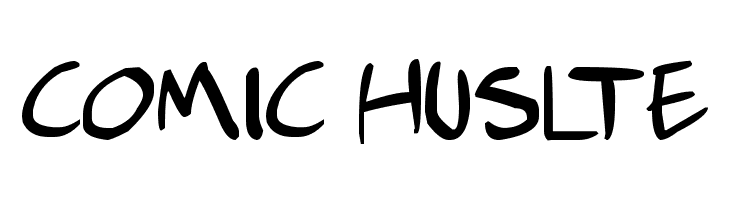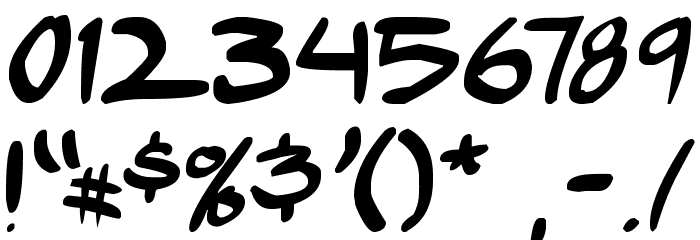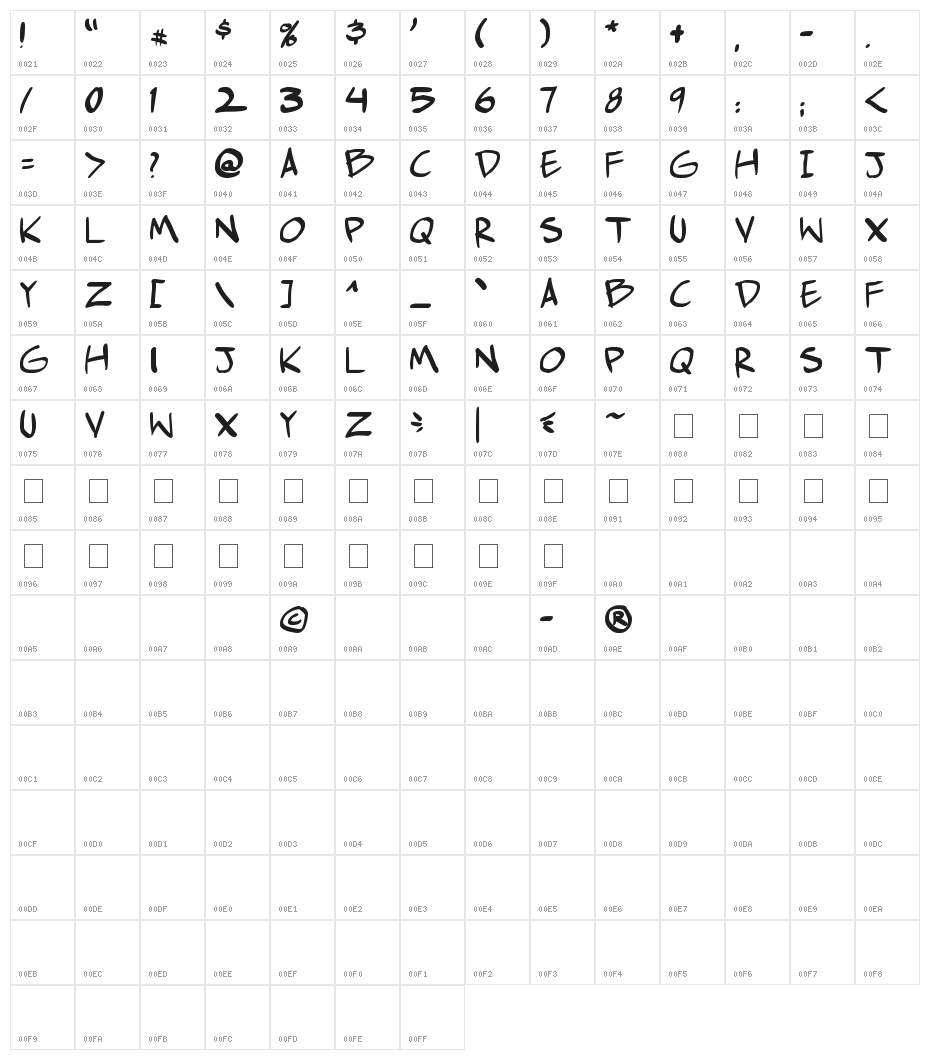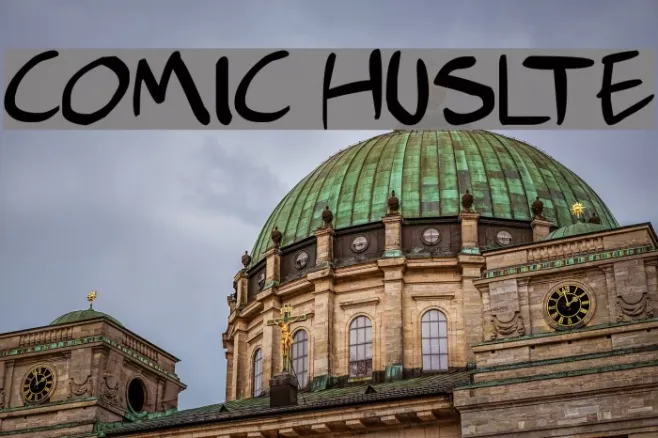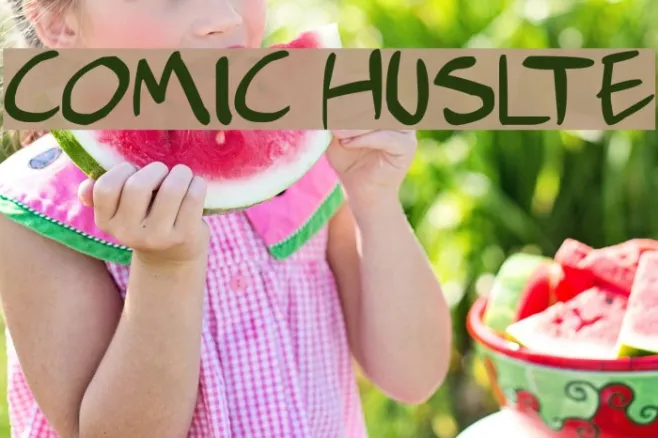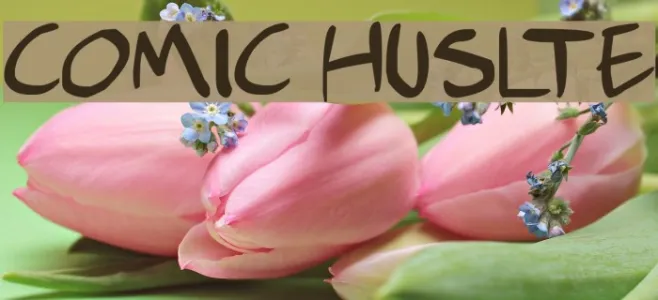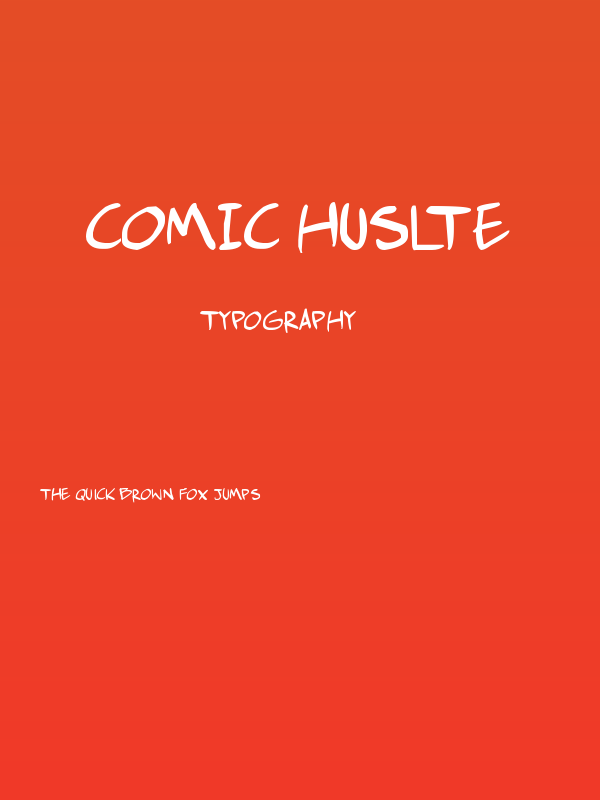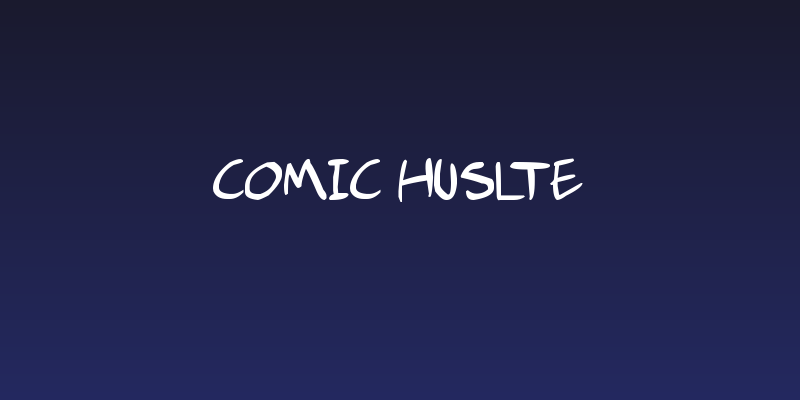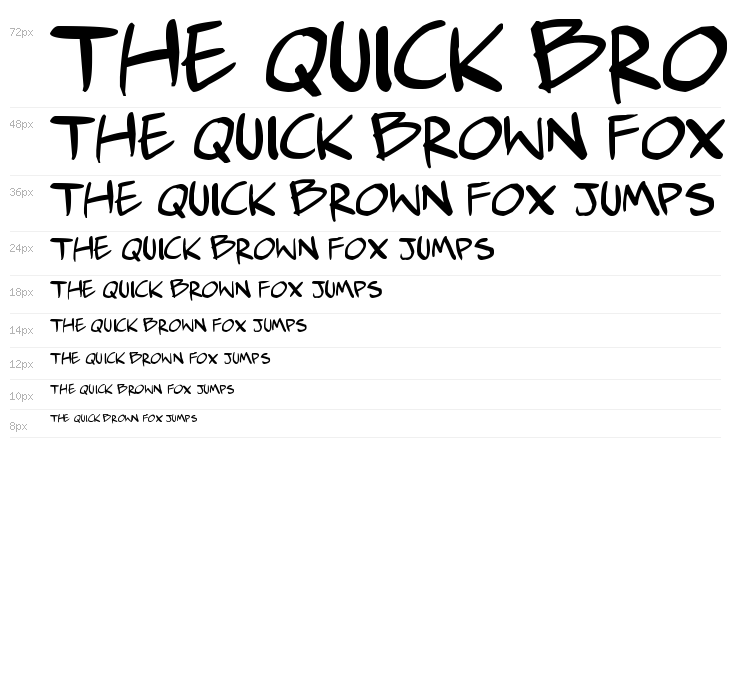
comic huslte Font
comic huslte Description
This playful and energetic font features bold, rounded characters with a hand-drawn appearance. The letters have a casual, comic-like style, with varying stroke thickness that adds a dynamic feel. The uppercase and lowercase letters maintain a consistent flow, while the numerals and special characters complement the overall aesthetic. The font's informal and approachable nature makes it ideal for projects that require a fun and engaging look. Its unique style captures attention and conveys a sense of creativity and spontaneity.
| Proposed Projects | Ideal for comic books, children's books, playful branding, posters, and social media graphics. |